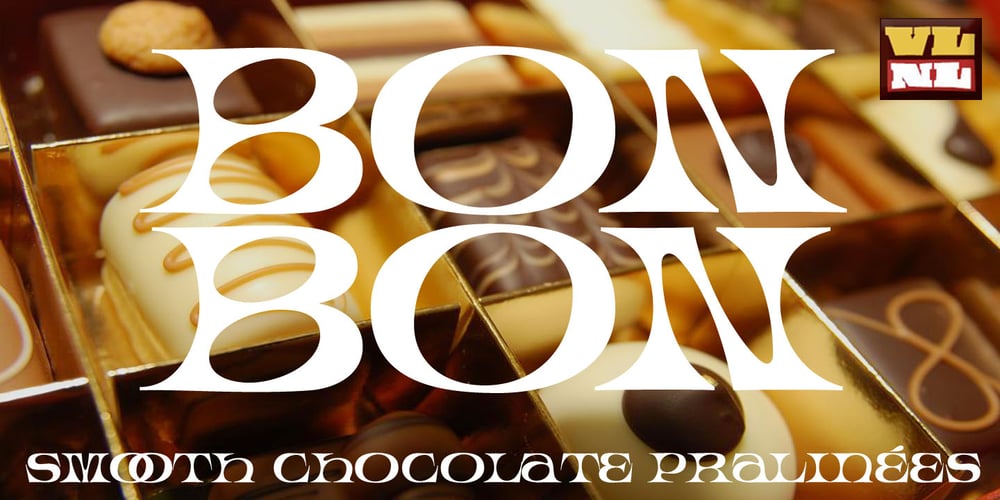
VLNL Bon Bon Font Family was designed by Donald Beekman and published by VetteLetters. VLNL Bon Bon contains 1 styles and family package options. Exuberantly delicious and lusciously sweet! VLNL Bon Bon embodies the perfect after dinner treat. Chocolate is a known aphrodisiac and bonbons are its most romantic carrier. Bonbon is not for nothing the French word for ‘good’ twice! You could definitely consider VLNL Bonbon the typographic equivalent of these exquisite chocolate sweets. Inspired by lettering on an Amsterdam church facade and a ladies clothing store window, Donald DBXL Beekman started drawing the first incarnation of Bon Bon already in 2004. The original idea was an alphabet design with slanted oval inner shapes and extremely long and striking serifs. This proved to be a quite demanding design job, so It took Bon Bon some time to get finished. But now it’s here in all its extravagant glory. Most recently a number of lowercase characters were added to make Bon Bon more versatile. Totally insane and over-top-the-top it has been called. But hey, we all love Bon Bon. Don’t we?